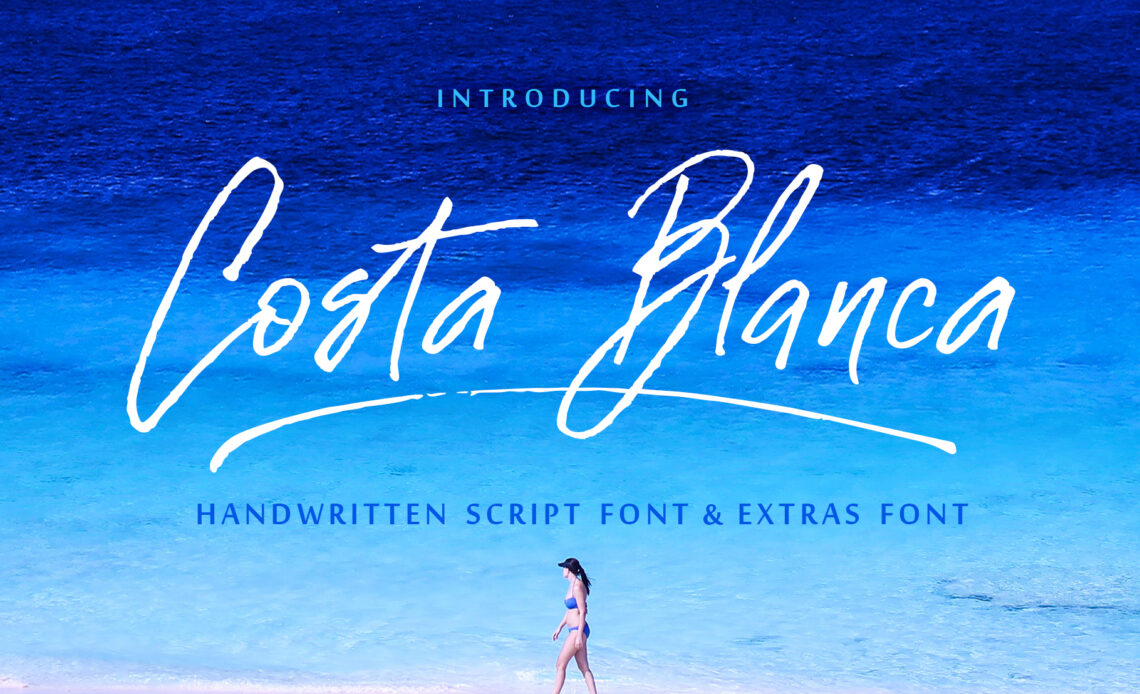
Costa Blanca Font
Costa Blanca is not just a font, it's a reflection of your individuality. With its delicate, hand-lettered strokes, this script font will add a personal touch to your designs. Whether you're creating invitations, social media posts, or website banners, Costa Blanca will add a touch of class and sophistication. It's the perfect font for adding a touch of personality to your projects.
Each letter in Costa Blanca has been lovingly crafted to create a font that is both beautiful and easy to read. Its thin, flowing strokes add a touch of elegance to any design. Whether you're using it for a personal project or a commercial endeavor, Costa Blanca is sure to make a lasting impression.
* It's versatile. Costa Blanca can be used for a wide variety of projects, from invitations to social media posts to website banners.